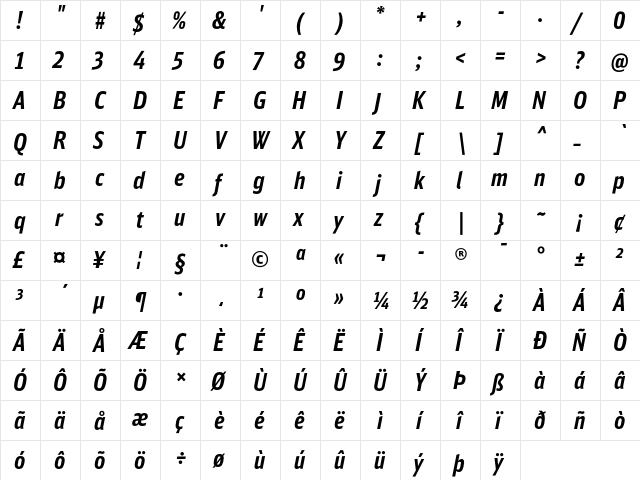
DB Sans Comp Altern Bold Italic Font Preview
Design Context for DB Sans Comp Altern Typeface
DB Sans Comp Altern offers clean, dependable letterforms without strong stylistic allegiance, making it a practical choice for designers who need flexibility. The dynamic lean of this cut emphasises speed and emphasis in any layout. Its bold stroke weight gives it real presence on the page.
Pro Tip: Try DB Sans Comp Altern for annotation and caption copy alongside an upright companion — the contrast in angle creates a dynamic but ordered typographic system.